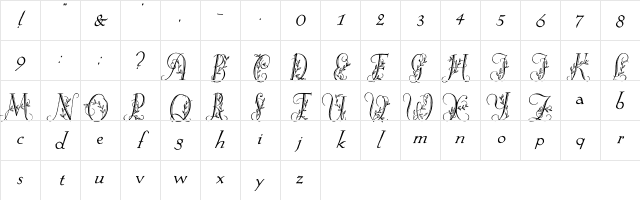
Springtime Flourish Normal
Complete Springtime Flourish Normal glyph index. Displaying only characters natively supported by Springtime Flourish Normal font.
Design Context for Springtime Flourish
Springtime Flourish is a composed and adaptable typeface that performs quietly and consistently across a wide range of design contexts.